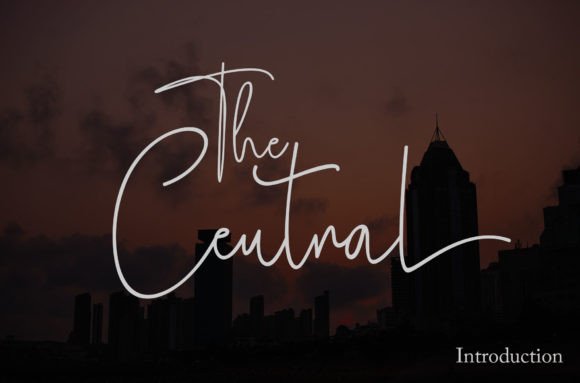
The Central Font
Indulge in the exquisite artistry of The Central Font, a calligraphy masterpiece that exudes sophistication. Its captivating ligatures and alluring alternates infuse your creations with a touch of timeless elegance.
Crafted with a delicate, sweeping stroke, The Central Font seamlessly transforms ordinary words into captivating expressions. From breathtaking wedding invitations to polished business cards, this font adds a touch of refinement to all your endeavors.
Whether you're a fashion designer seeking to elevate your designs or a discerning individual yearning for a font that speaks to your unique style, The Central Font is your perfect partner. Immerse yourself in a world of limitless creativity, where words become art.